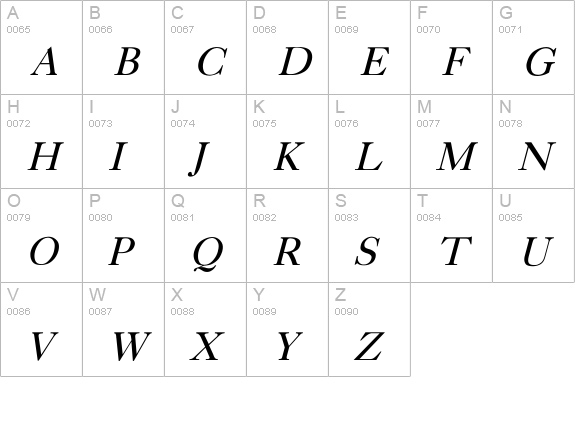
Caslon Italic is a distinctive, italic variant in the Caslon typeface family \xE2\x80\x94 well suited to design and typography projects.
Caslon Italic font is a classic and elegant typeface that exudes sophistication and refinement. With its graceful slanted style and delicate serifs, Caslon Italic adds a touch of timeless beauty to any design project. The flowing curves and subtle angles of this font create a sense of fluidity and movement, making it ideal for conveying a sense of elegance and sophistication. Best of all, Caslon Italic font is available for free download at FontsMarket.com. Whether you're working on a print publication, website design, or any other creative project, Caslon Italic offers a versatile and stylish option that will elevate your work to the next level. Download Caslon Italic today and add a touch of classic charm to your designs.